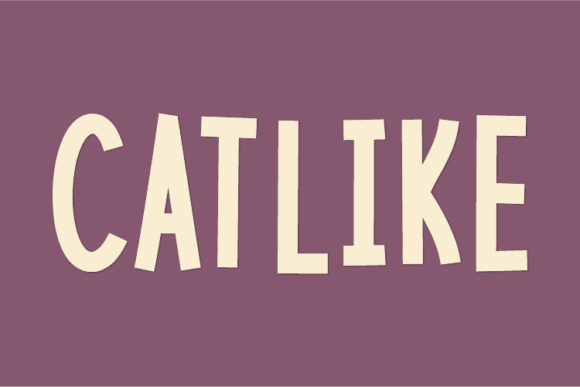
Introducing Catlike Font: Elevate Your Designs with a Purr-fectly Beautiful Sans Serif Font
Are you a designer or crafter looking for a font that will make your creations stand out? Look no further than Catlike Font, a stunning sans serif font that is sure to become a valuable addition to your collection. With its clean lines, elegant curves, and friendly vibe, Catlike Font is the perfect choice for a wide range of design projects.
What Makes Catlike Font So Special?
Catlike Font is a beautifully crafted sans serif font that boasts a unique and distinctive style. Its sleek and modern design makes it perfect for use in a variety of applications, from logos and branding materials to quotes, T-shirts, greeting cards, business cards, and more.
One of the key features that sets Catlike Font apart is its versatility. Whether you’re creating a bold and eye-catching design or a more subtle and understated one, Catlike Font adapts seamlessly to any style or theme. Its friendly and approachable vibe makes it perfect for use in designs that require a personal touch.
Use Catlike Font to Elevate Your Designs
So, how can you use Catlike Font to take your designs to the next level? Here are just a few ideas to get you started:
- Logos and Branding: Use Catlike Font to create a memorable and impactful logo that will help your brand stand out.
- Quotes and Posters: Add a touch of elegance and sophistication to your quotes and posters with Catlike Font.
- T-Shirts and Apparel: Create eye-catching and stylish T-shirts and apparel with Catlike Font.
- Greeting Cards and Invitations: Add a personal touch to your greeting cards and invitations with Catlike Font.
- Business Cards and Stationery: Use Catlike Font to create professional and stylish business cards and stationery.
Why Choose Catlike Font?
So, why should you choose Catlike Font for your design projects? Here are just a few reasons:
- Unique and Distinctive Style: Catlike Font boasts a unique and distinctive style that will help your designs stand out.
- Versatile: Catlike Font is versatile and can be used in a wide range of applications.
- Easy to Read: Catlike Font is easy to read, making it perfect for use in designs that require a clear and concise message.
- High-Quality: Catlike Font is a high-quality font that is designed to deliver exceptional results.
Tips for Using Catlike Font
Here are a few tips for using Catlike Font in your design projects:
- Experiment with Different Sizes: Experiment with different sizes to find the perfect fit for your design.
- Play with Colors: Play with different colors to find the perfect combination for your design.
- Use it with Other Fonts: Use Catlike Font with other fonts to create a unique and visually appealing design.
In conclusion, Catlike Font is a beautiful sans serif font that is sure to become a valuable addition to your design collection. With its unique and distinctive style, versatility, and high-quality design, Catlike Font is the perfect choice for a wide range of design projects. Whether you’re a designer or crafter, Catlike Font is sure to help you create stunning and effective designs that will leave a lasting impression.